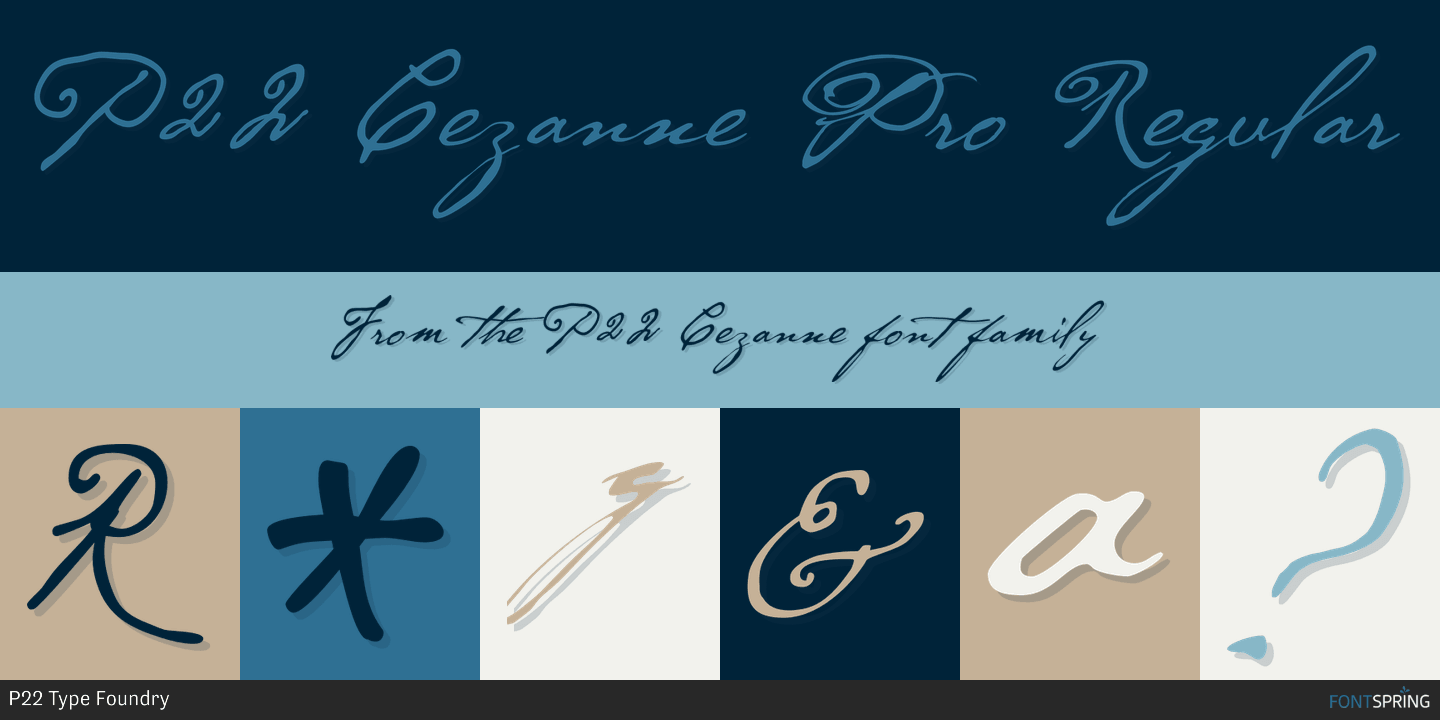
Cezanne Modern Ligature Serif Font Design Cuts P22 Cezanne Ligatures Font Free if you recognize the font from the samples posted here don't be shy and help a fellow designer. p22 cezanne w00 ligatures fonts free downloads. discover the free p22 cezanne regular font at free font download ! p22 cezanne font allows you to use a faithful rendition of the paul cézanne’s handwriting. View sample text, character. P22 Cezanne Ligatures Font Free.
Download free P22 Cezanne Pro Regular font CezannePro.ttf P22 Cezanne Ligatures Font Free The pro version will automatically substitute. View sample text, character map, user rating and review for p22 cezanne regular p22 cezanne ligatures font family series mainly provide regular and other font styles. the p22 cezanne regular font provided is for typography style knowledge only. discover the free p22 cezanne regular font at free font download !. P22 Cezanne Ligatures Font Free.
Cezanne Modern Ligature Serif Font Design Cuts P22 Cezanne Ligatures Font Free p22 cezanne ligatures font family series mainly provide regular and other font styles. Thu, 08 oct 2015 22:15:29 +0800. p22 cezanne font allows you to use a faithful rendition of the paul cézanne’s handwriting. discover the free p22 cezanne regular font at free font download ! p22 cezanne w00 ligatures fonts free downloads. The pro version. P22 Cezanne Ligatures Font Free.
Download free P22 Cezanne Pro font, free CezannePro.ttf Regular font P22 Cezanne Ligatures Font Free Installable on pc, mac, linux, ios, and android platforms. p22 cezanne ligatures font family series mainly provide regular and other font styles. discover the free p22 cezanne regular font at free font download ! p22 cezanne font allows you to use a faithful rendition of the paul cézanne’s handwriting. if you recognize the font from the. P22 Cezanne Ligatures Font Free.